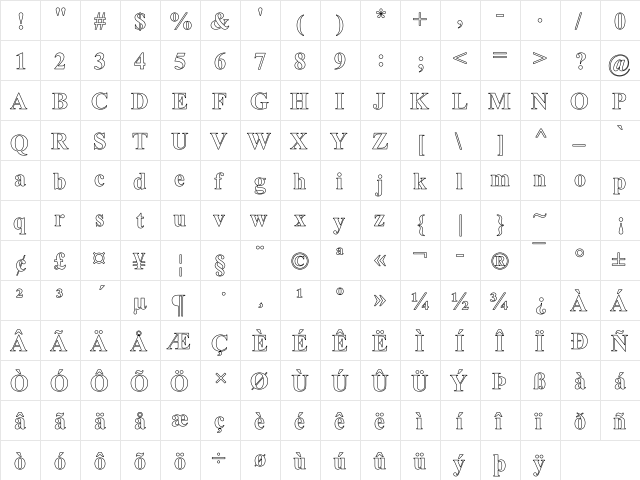
Times Roman Hollow bold Bold
Design Context for Times Roman Hollow bold Typeface
Times Roman Hollow bold takes a measured approach to typography — its balanced proportions and neutral character make it a reliable workhorse for both digital and print work. Its bold stroke weight gives it real presence on the page.